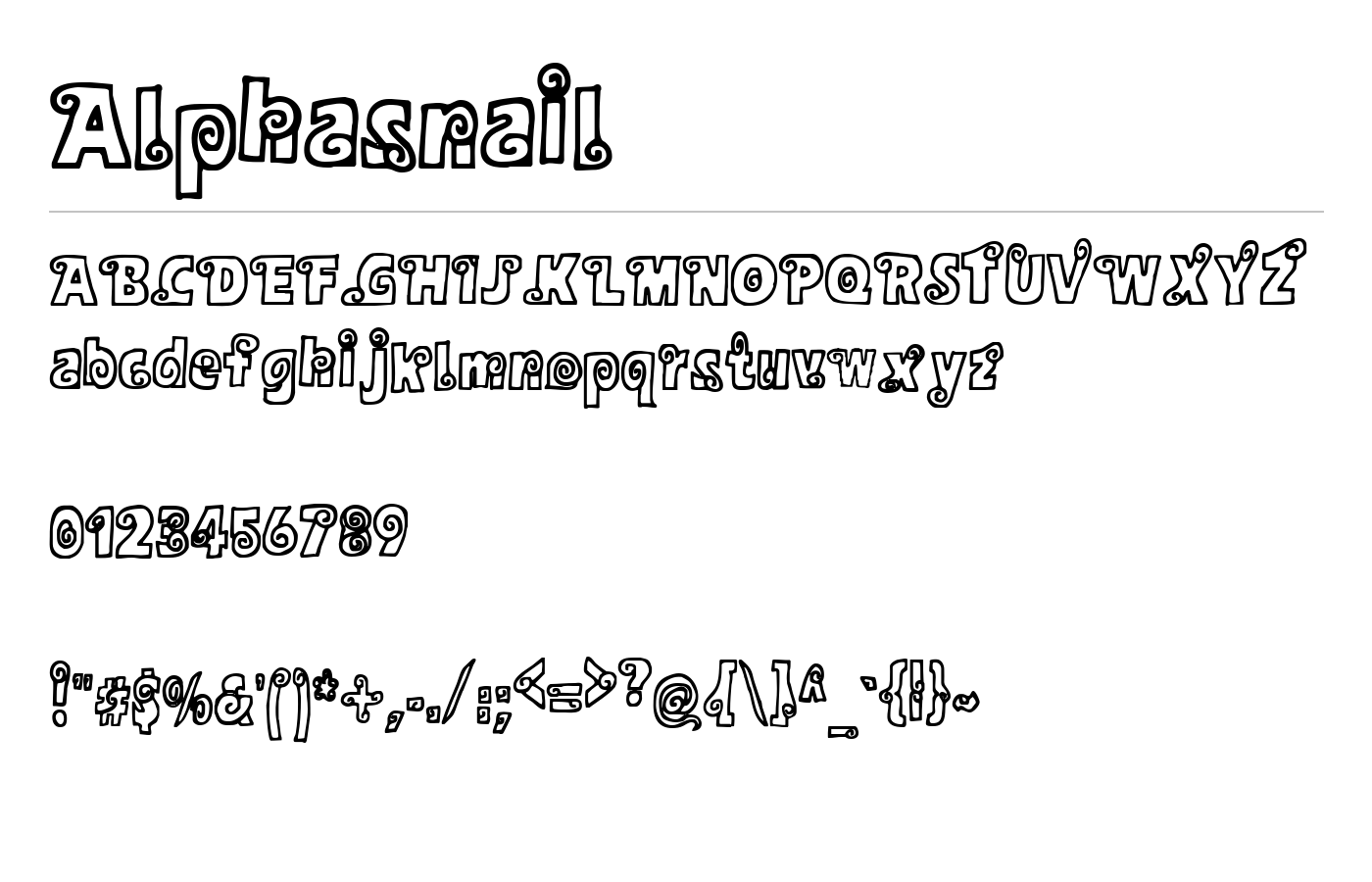
Alphasnail is a playful, outlined serif font with a quirky and whimsical character, featuring decorative curls and rounded serifs that give it a hand-drawn, cartoonish feel. Its moderate weight and slightly condensed proportions make it eye-catching and fun, ideal for creative projects that want to convey a lighthearted, friendly vibe. This font works wonderfully for children's books, posters, logos, and any design seeking a unique, informal charm.